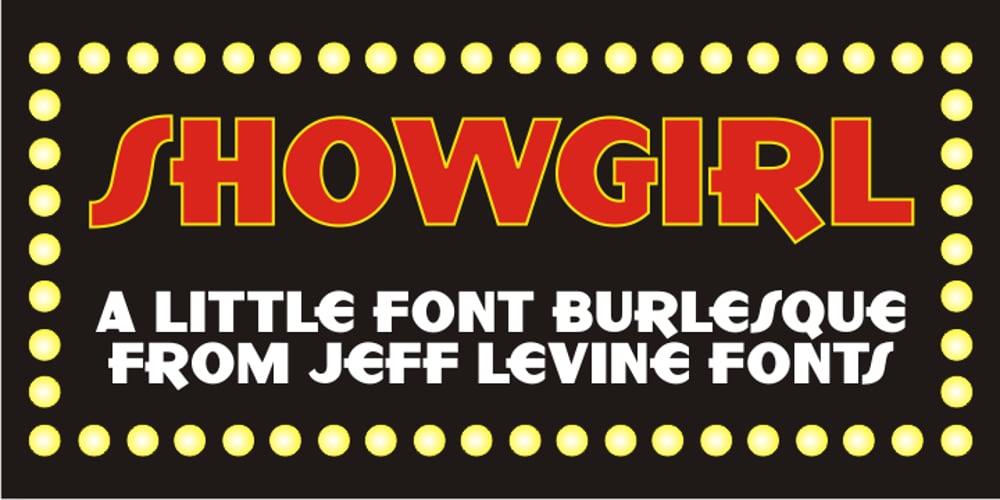
Showgirl JNL
Showgirl JNL font
Showgirl JNL Font Family was designed by Jeff Levine and published by Jeff Levine. Showgirl JNL contains 1 styles and family package options. Showgirl JNL was inspired by a photo of a 1940s-era Minsky’s Burlesque theater. The neon letters on the marquee spelling out the word ‘burlesque’ exuded a wonderful period look.